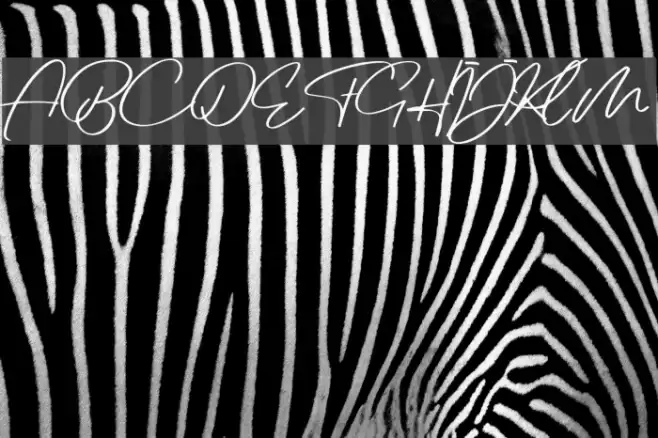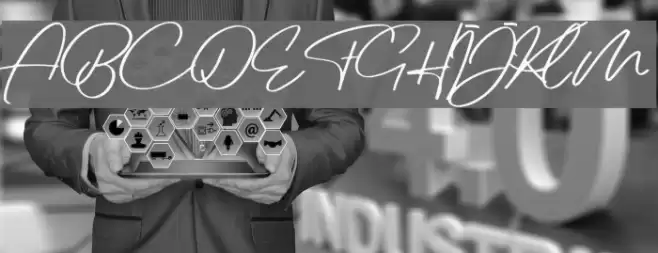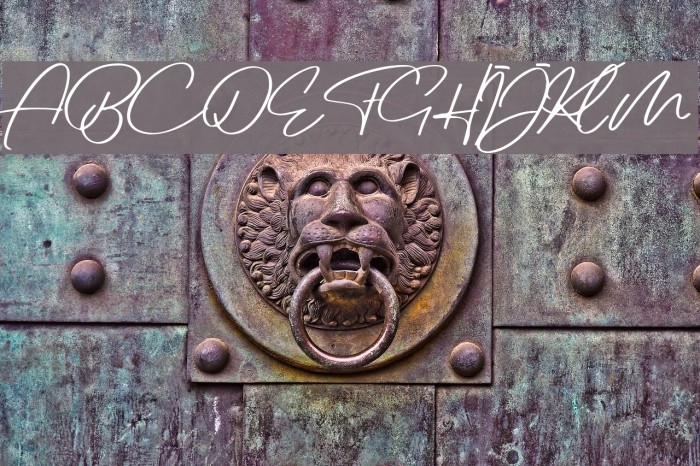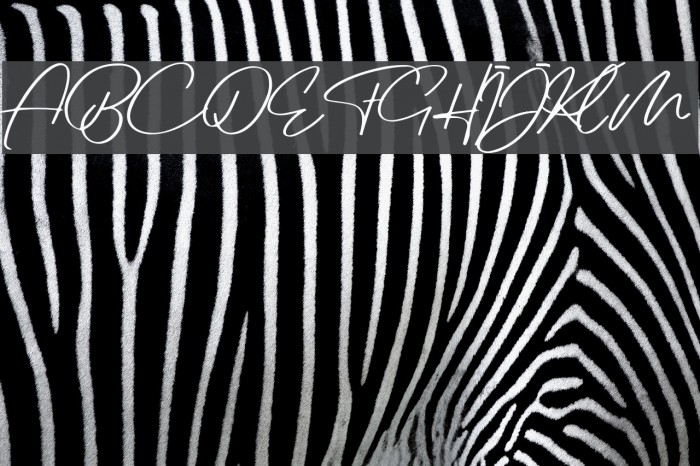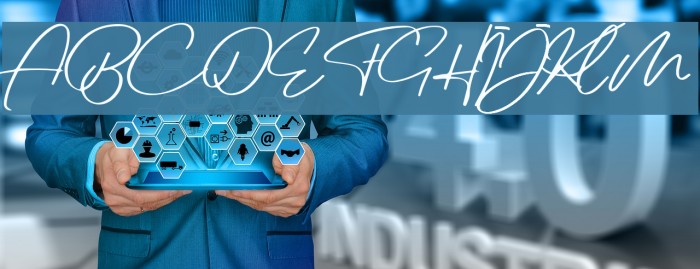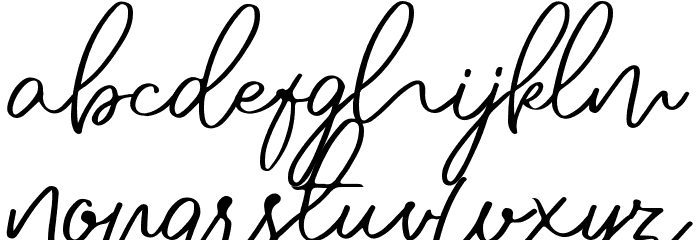
Jovanka Demo Regular Font
Jovanka Demo Regular Description
This font features an elegant and flowing script style, characterized by its smooth, cursive strokes and graceful curves. The uppercase letters are tall and slender, with intricate loops and flourishes that add a touch of sophistication. The lowercase letters maintain a consistent flow, with some letters extending below the baseline, enhancing the font's fluidity. The overall appearance is both stylish and readable, making it suitable for a variety of design applications. The font's delicate nature is complemented by its moderate contrast in stroke thickness, providing a balanced and harmonious look.
An elegant, flowing script font with smooth, cursive strokes and graceful curves from Uncategorized fonts.
- Proposed Projects: Ideal for wedding invitations, elegant branding, personal stationery, and decorative quotes.
- Overall Style: Elegant
- Use Case: Logos, Invitations, Decorative text